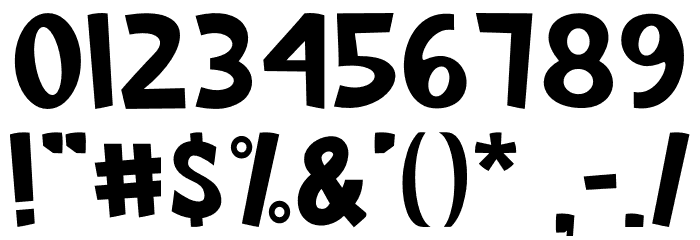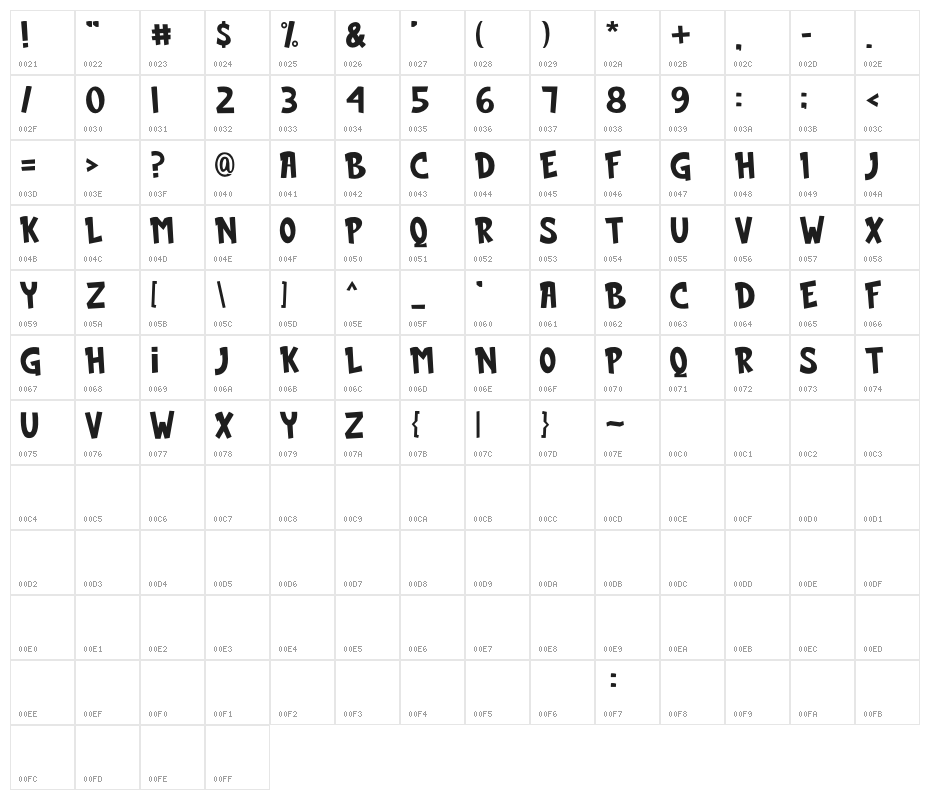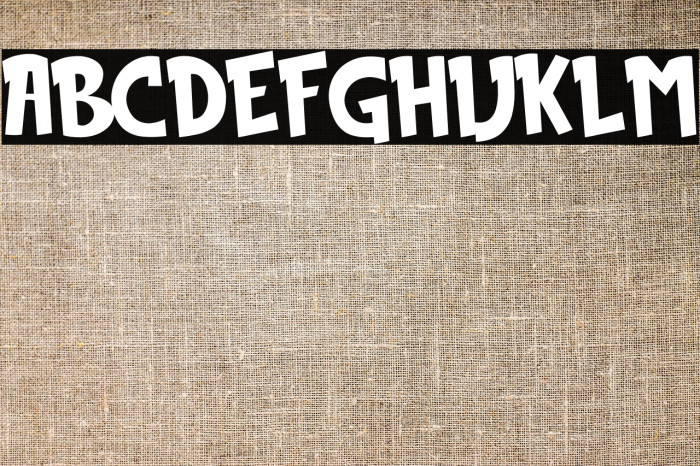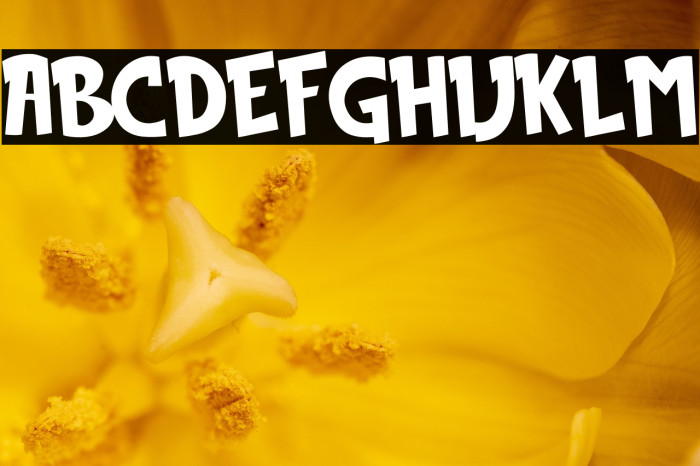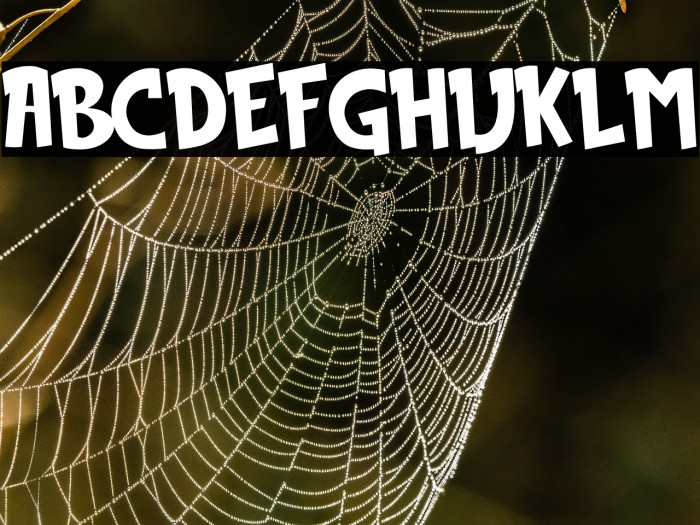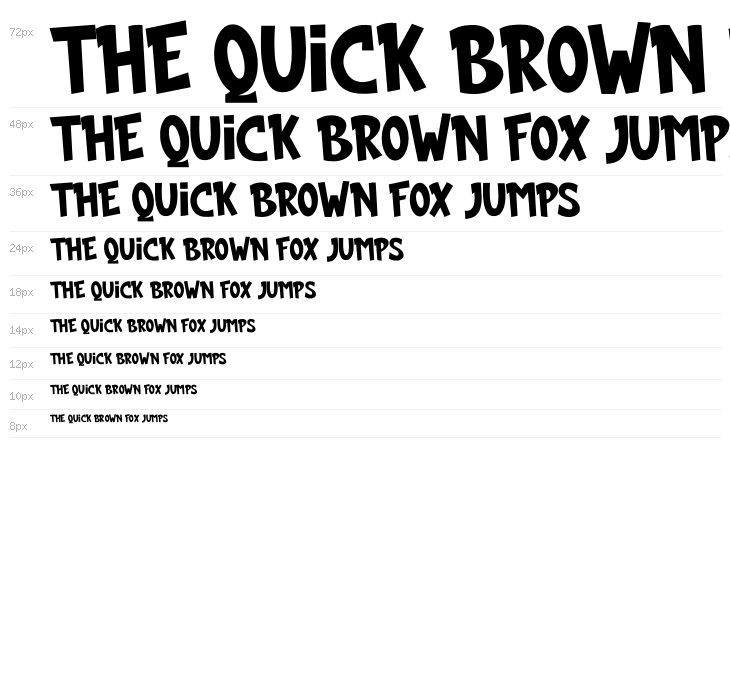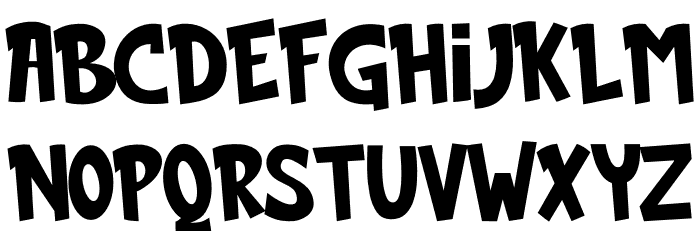
brick comic Font
brick comic Description
This playful and bold font features a comic-style design with exaggerated curves and a lively appearance. The letters are slightly irregular, giving them a hand-drawn feel that adds to their charm. The uppercase and lowercase characters maintain a consistent style, with rounded edges and a slightly whimsical touch. The numbers and special characters follow the same playful theme, making this font ideal for projects that require a fun and engaging look.
Overall StylePlayful, Comic
Proposed ProjectsIdeal for comic books, children's books, playful branding, and posters.